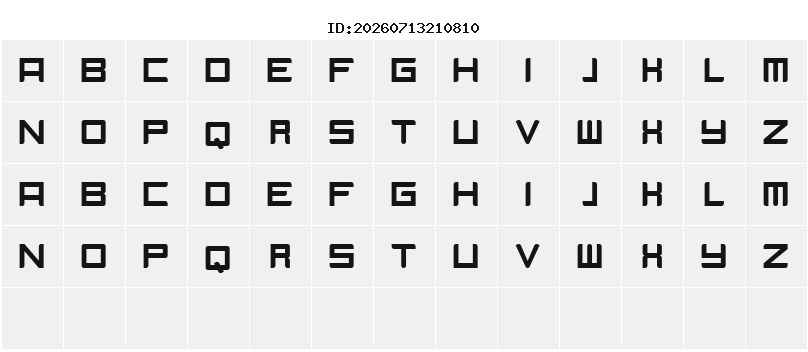
• Font Name: Camieis
• Designer: Paulo R
Camieis.ttf is a modern, elegant sans-serif font designed for ultimate readability and visual harmony. Perfect for branding, headlines, web design, and print materials.